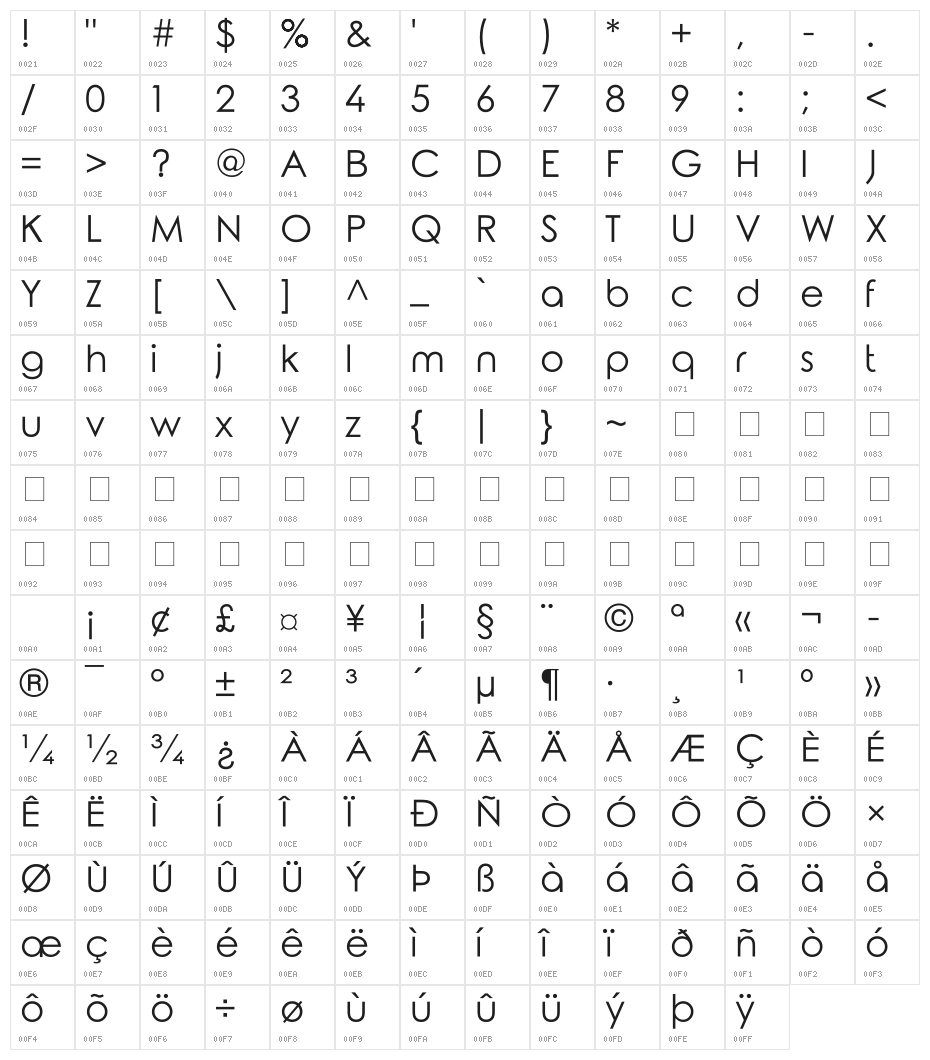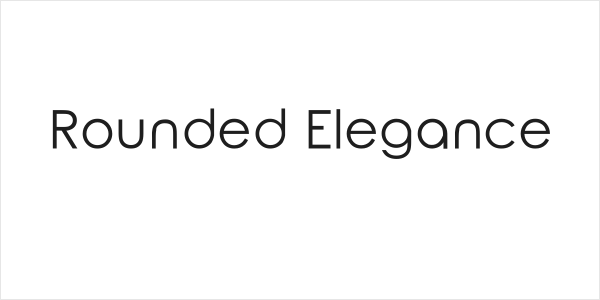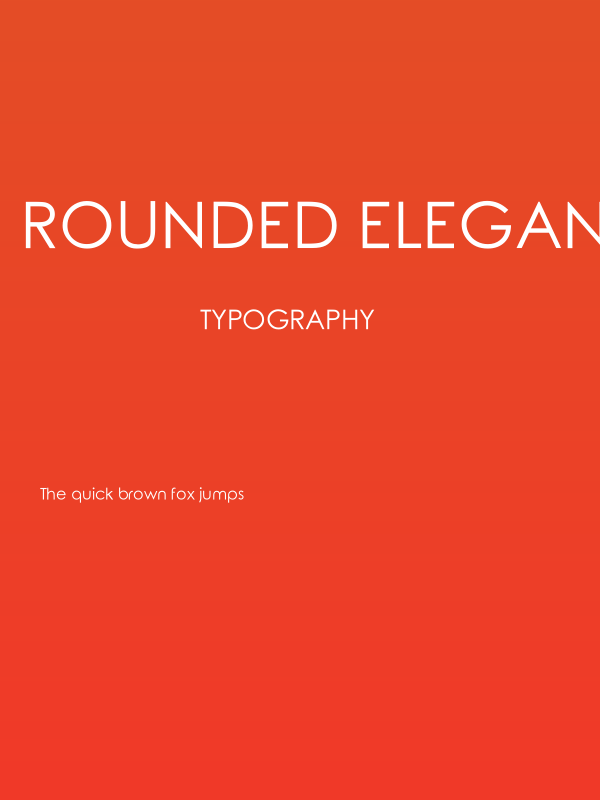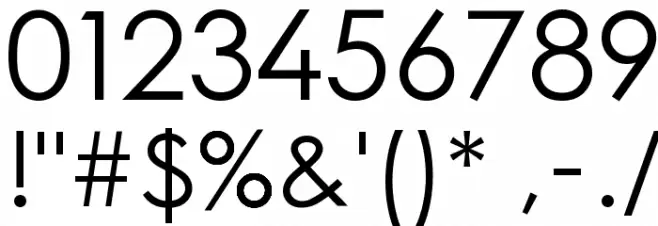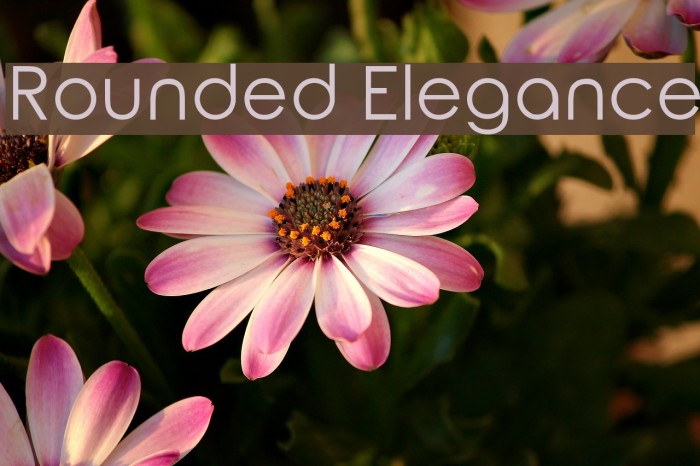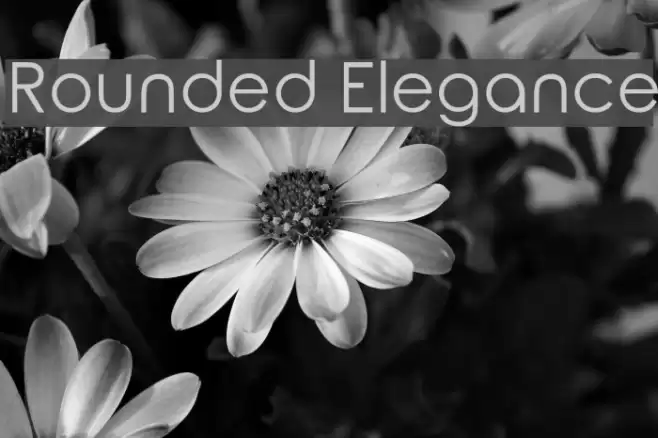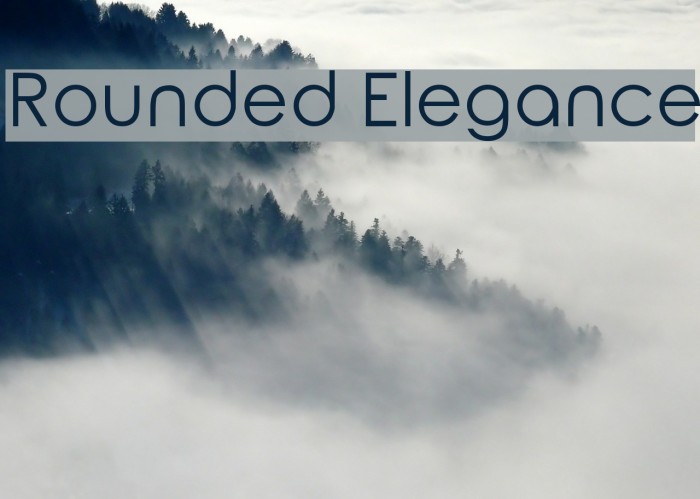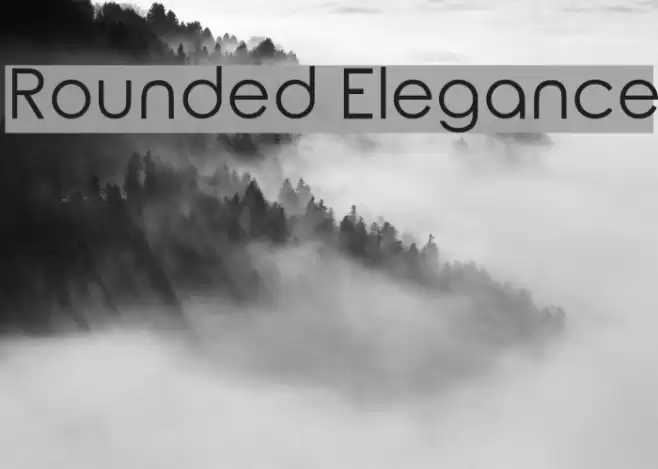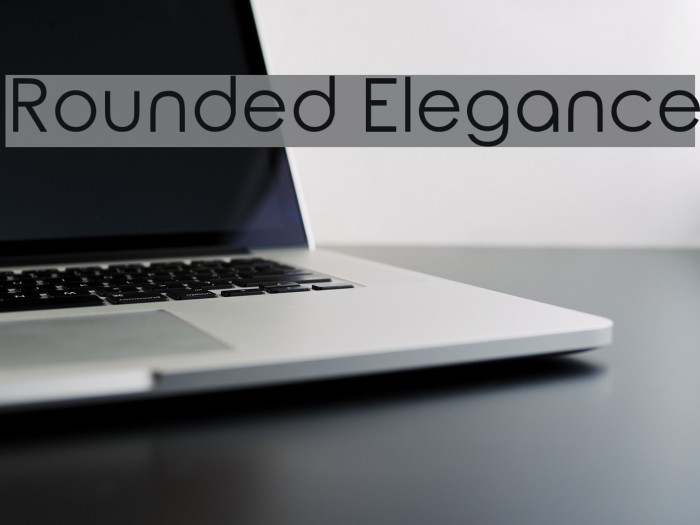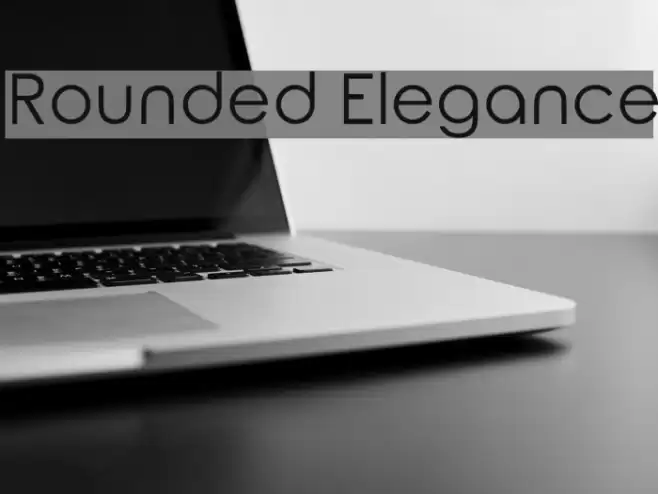
Rounded Elegance Font
Rounded Elegance Description
This font features a clean, modern aesthetic with smooth, rounded edges that give it a friendly and approachable feel. The uniform stroke width and lack of serifs contribute to its contemporary look, making it highly legible and versatile. Its geometric shapes and balanced proportions create a harmonious appearance, suitable for various design applications. The characters are evenly spaced, enhancing readability and providing a neat, organized presentation. This font's simplicity and elegance make it ideal for projects that require a modern yet warm touch.
| Use Case | Headlines, Body text, Logos |
| Proposed Projects | Ideal for branding, web design, advertising, and editorial layouts. |